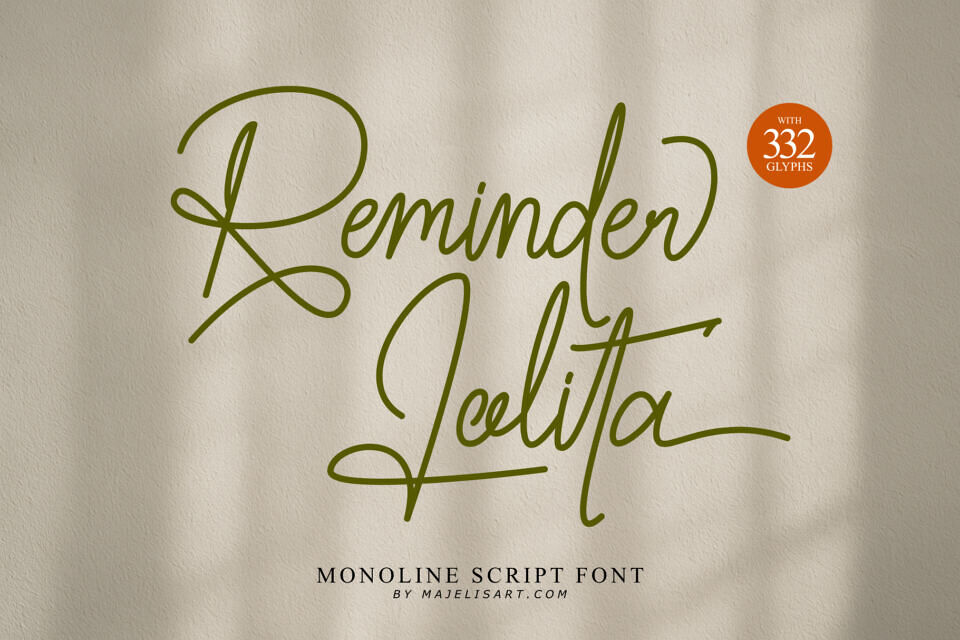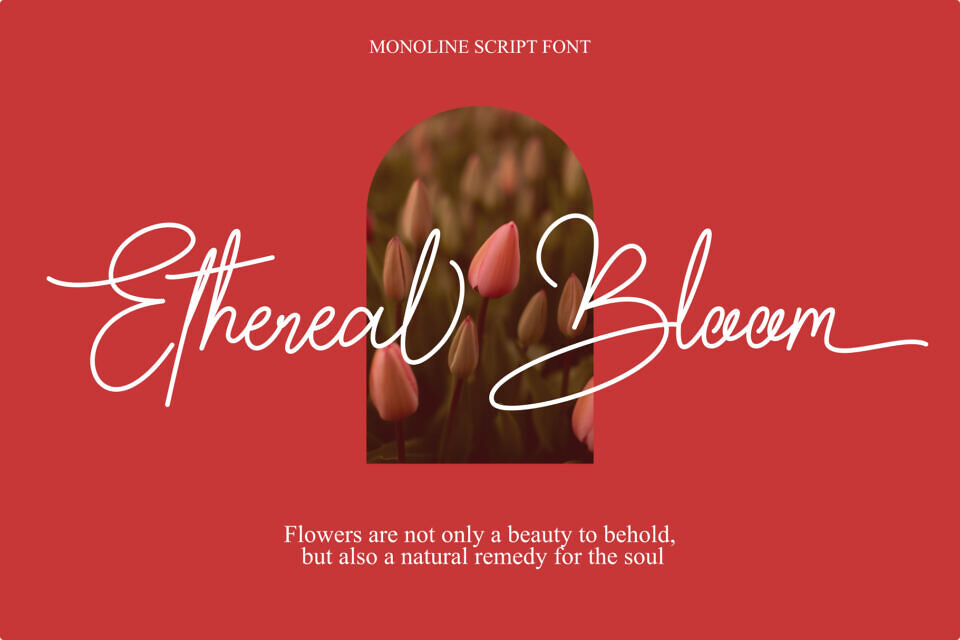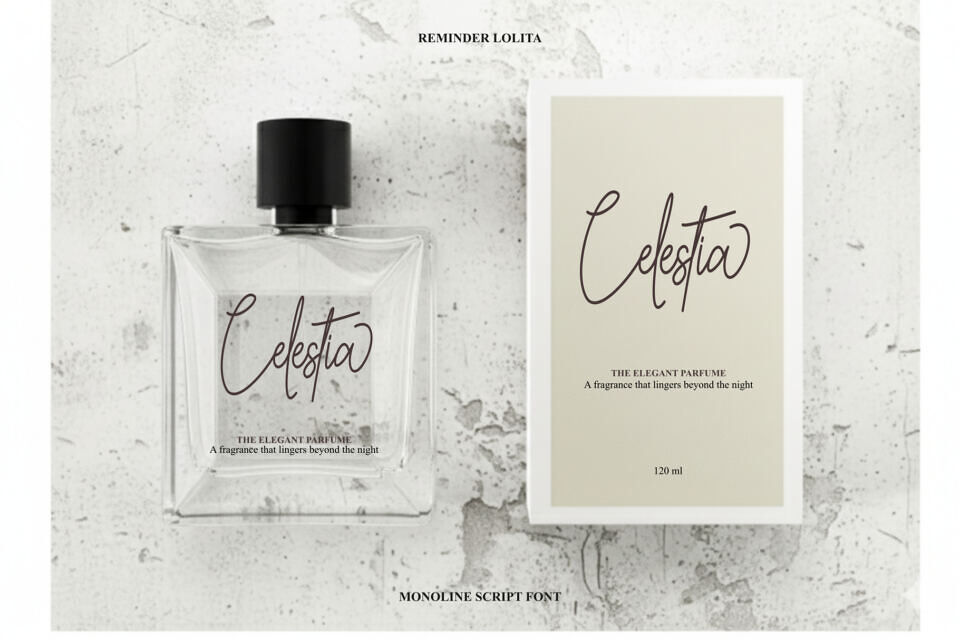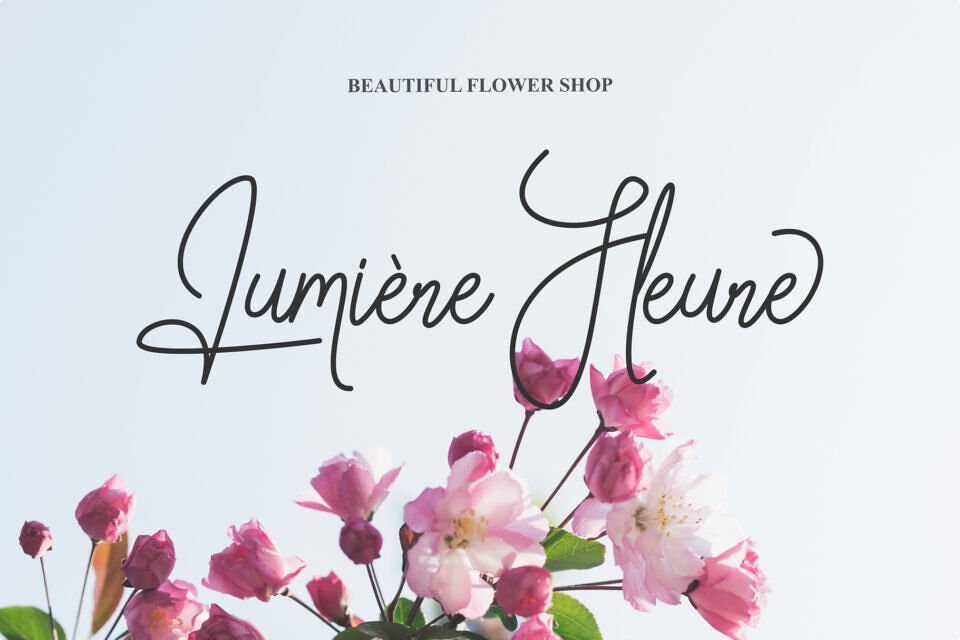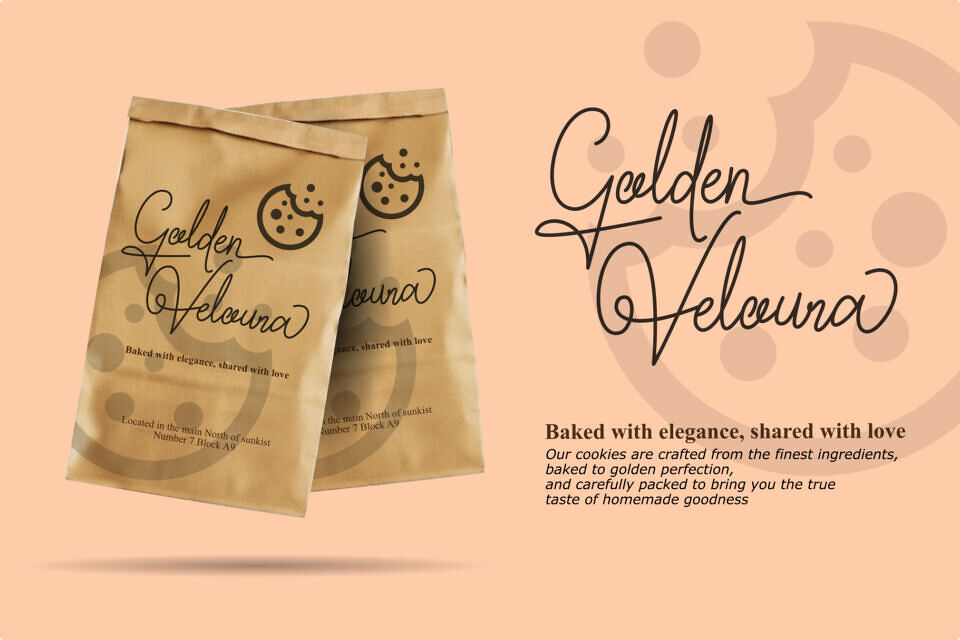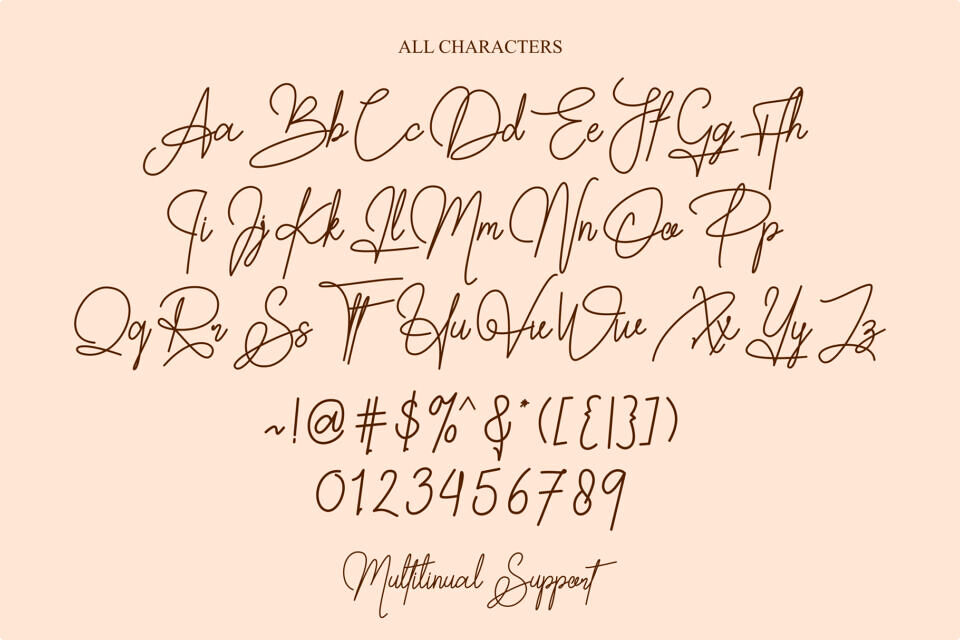
Reminder Lolita Font
Reminder Lolita is a smooth and elegant monoline script font that brings a soft, graceful touch to any design project. Its gentle strokes and flowing letterforms make it versatile and suitable for branding, logos, wedding invitations, greeting cards, packaging, posters, social media posts, and more.
This font comes in both OTF and TTF formats, featuring uppercase and lowercase letters, multilingual support, punctuation, ligatures, and stylish alternates. With over 332 glyphs, Reminder Lolita offers creative flexibility to enhance your designs with a personal, handwritten feel. Perfect for those who want a font that feels warm, modern, and timeless at the same time!